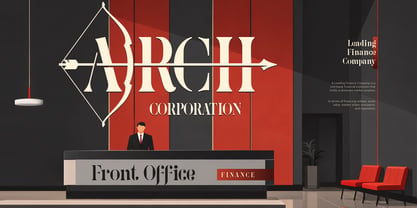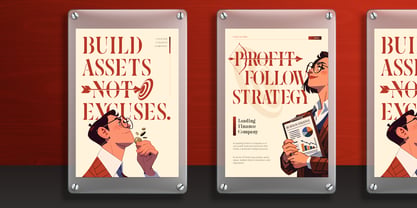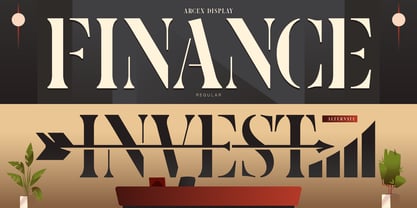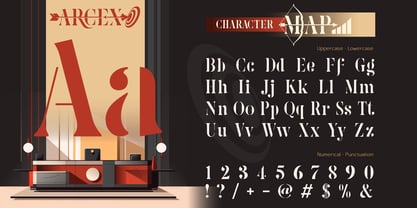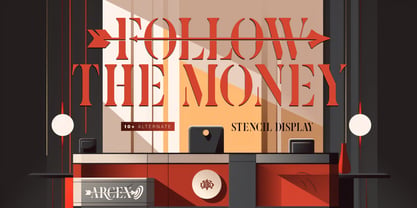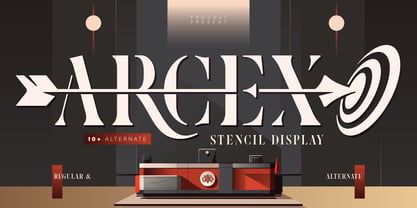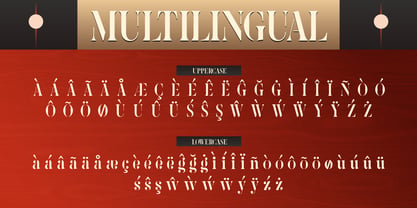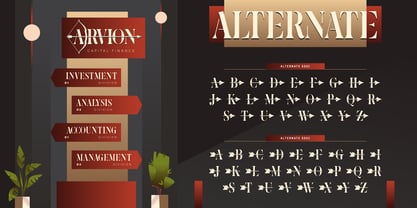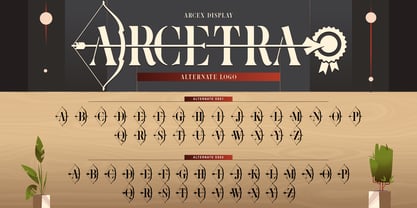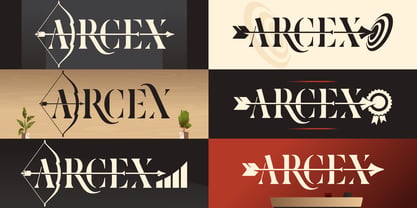
Arcex
by Burntilldead
The Arcex Font Family was designed by Eric Kurniawan and published by Burntilldead. Arcex contains 2 styles and family package options. More about this family
Arcex is a bold stencil display font that is perfectly suited for logo design, branding, and impactful headlines. Designed with sharp cuts and strong letterforms, it creates a powerful and memorable visual identity for modern brands. What makes Arcex stand out is its 10+ alternate characters, giving you the freedom to explore different styles and build a truly unique look. You can easily mix and match the alternates to create logos that feel more custom, dynamic, and high-end. With its modern stencil style and geometric structure, Arcex brings a professional yet distinctive vibe, perfect for industries like finance, corporate, startups, and more. Suitable for logo design, branding identity, corporate and finance projects, packaging design, editorial and headlines.
Designers: Eric Kurniawan
Current Foundry: Burntilldead